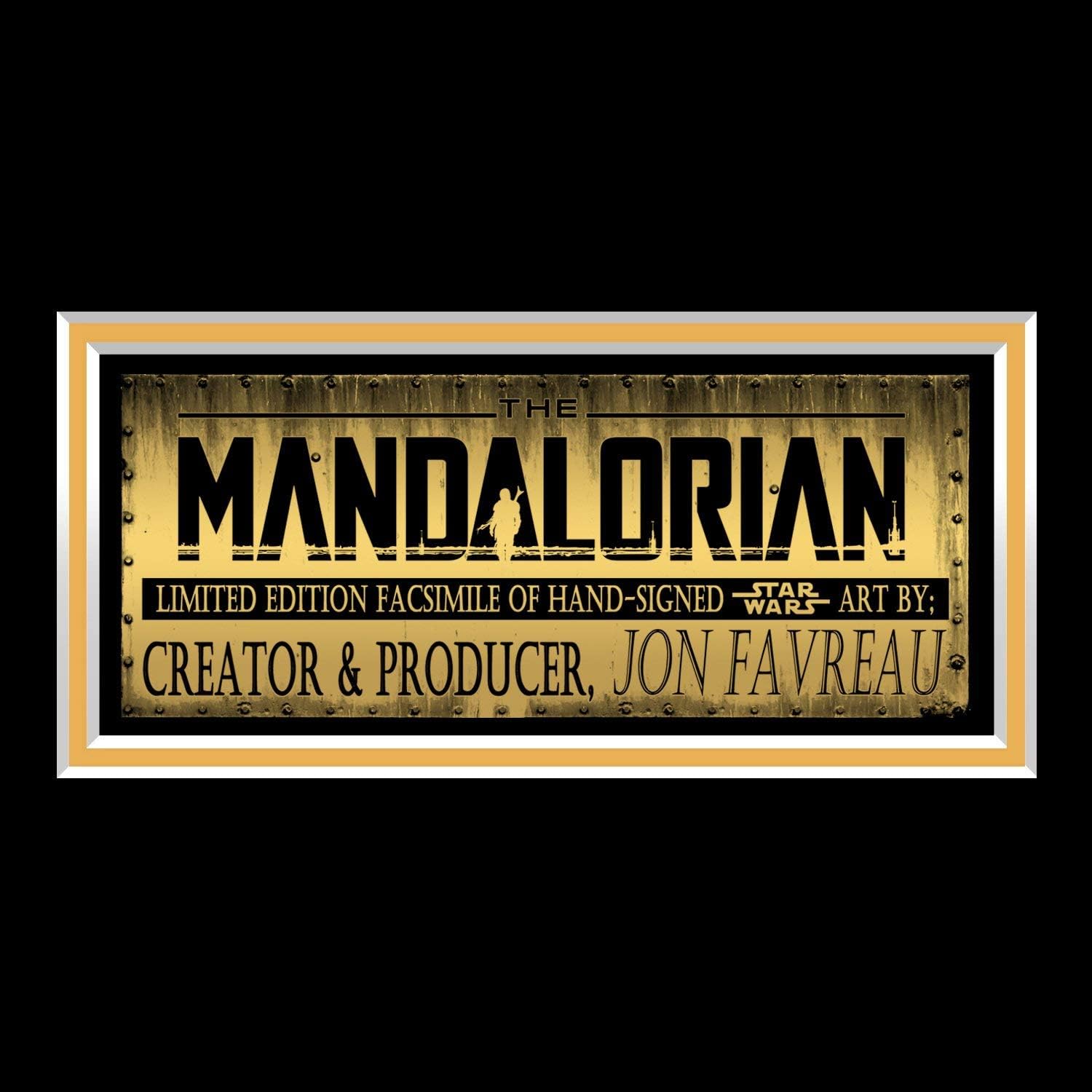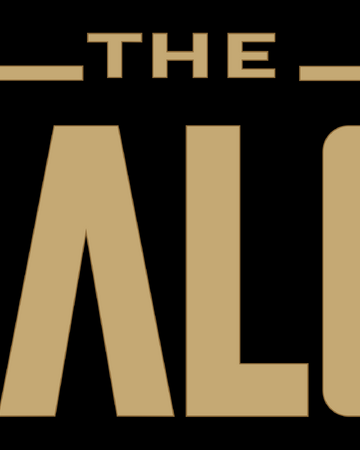
The Mandalorian Logo Font Generator
The mandalorian font by fontstudio lab.
Trivia about the mandalorian font. How to install your mandalorian font. After an extensive search we believe the font showcased here is the best mandalorian font replica and is your best bet to use as a mandalorian font generator.
If you do not want to download and install the font but just like to create simple text logos using the mandalorian font just use the text generator below. The text generator section features simple tools that let you create graphics with fonts of different styles as well as various text effects. Do not miss the best fonts for one of the great classics star wars.
Truetype 14 glyphs 238 characters. The following tool will convert your entered text into images using the mandalorian font you can then save the image or click on the embed button to get links to embed the image on the web. This font stays true to the title and gives users the ability to type their as with a silhouette of the tenacious bounty hunter.